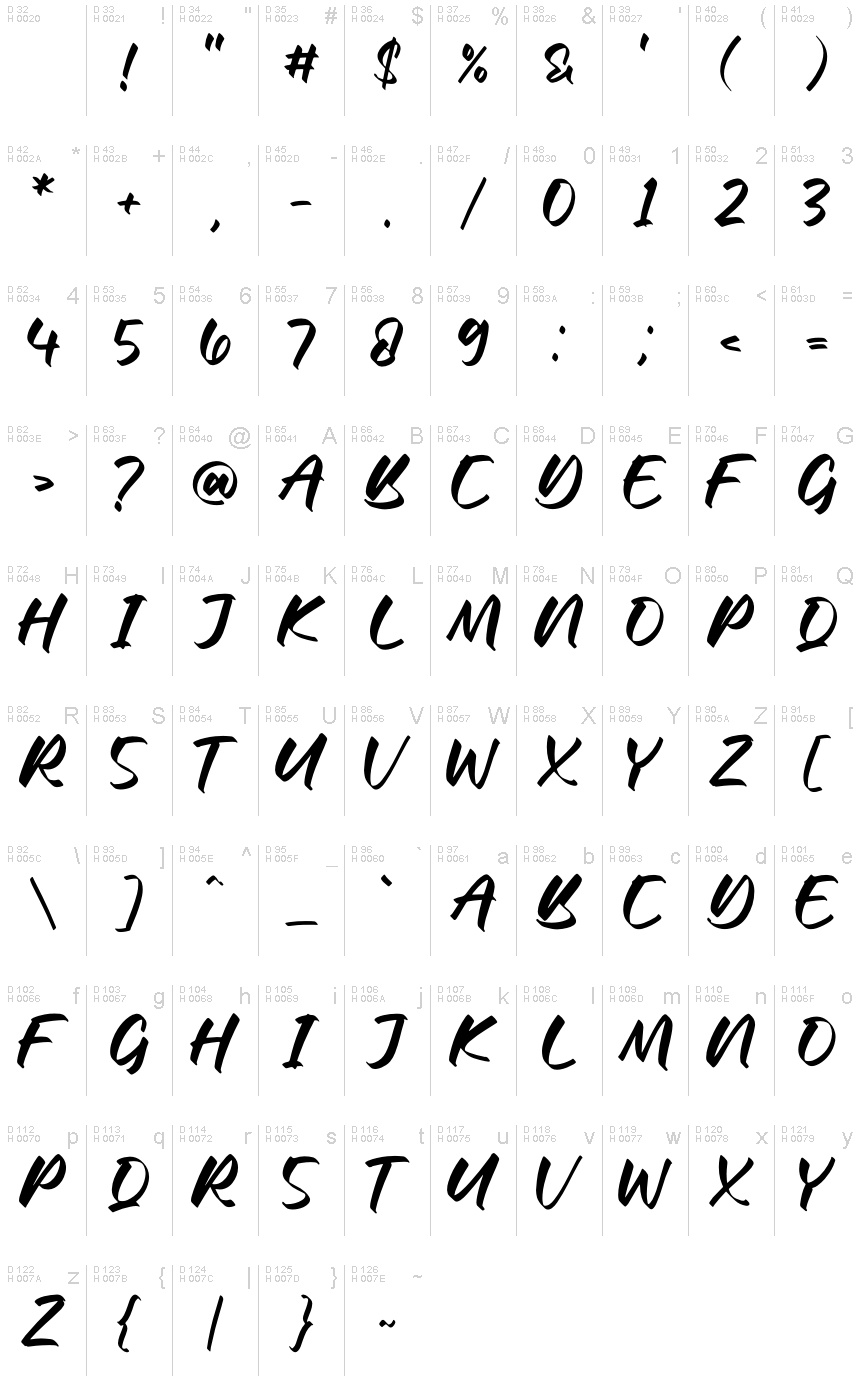
Wakimena
The Wakimena font by Perspectype Studio exudes a striking, hand-crafted aesthetic that immediately captures the eye. With its bold, expressive strokes and organic fluidity, this brush-style typeface radiates an unmistakable sense of energy and personality. The unique interplay of thick and thin lines, combined with the font's expressive flair, lends a dynamic, almost calligraphic quality to any text it adorns.
Wakimena's versatility shines through, making it a compelling choice for a wide range of design applications. Its bold, attention-grabbing presence makes it an ideal fit for headlines, branding, and editorial layouts, while its legibility and versatility also allow it to excel in more subtle roles, such as body copy or supporting text. The font's distinctive character seamlessly translates across both digital and print mediums, ensuring a consistent and impactful visual experience.